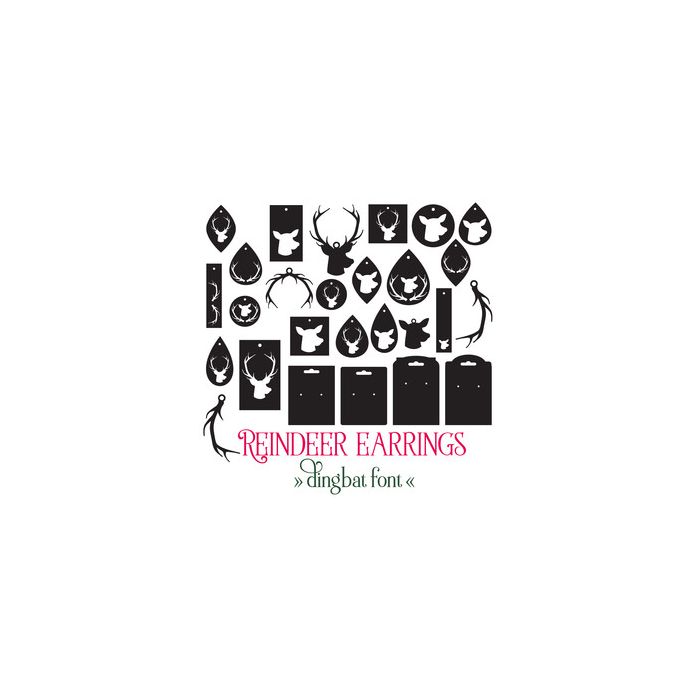
Reindeer Earrings Dingbat Font. With 22 earring elements that can be used alone or layered and 4 backing cards to make your own Christmas jewellery. All are allocated to upper and lowercase letters and can be accessed via the glyphs panel / character map - just type to access!